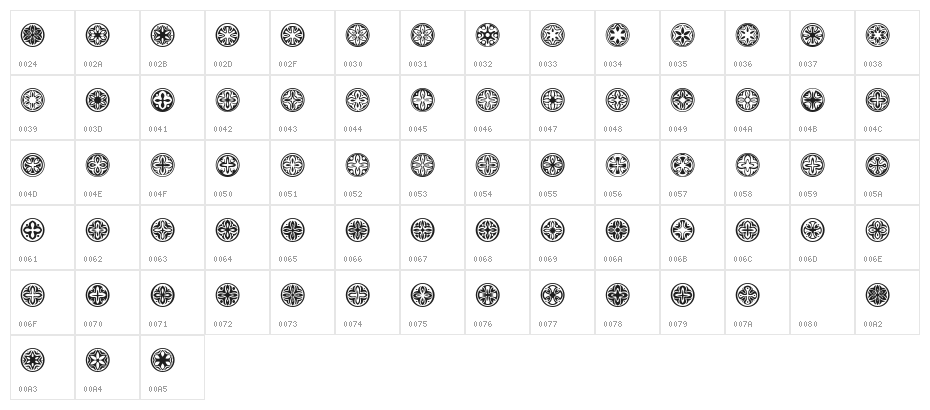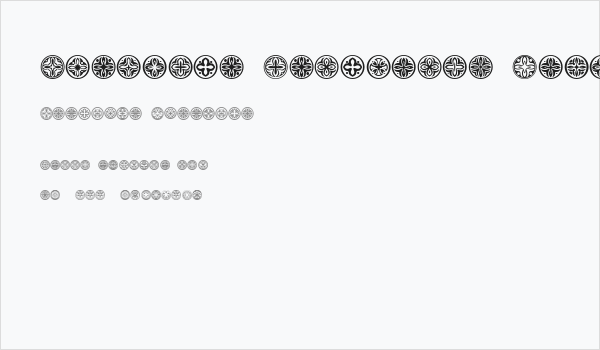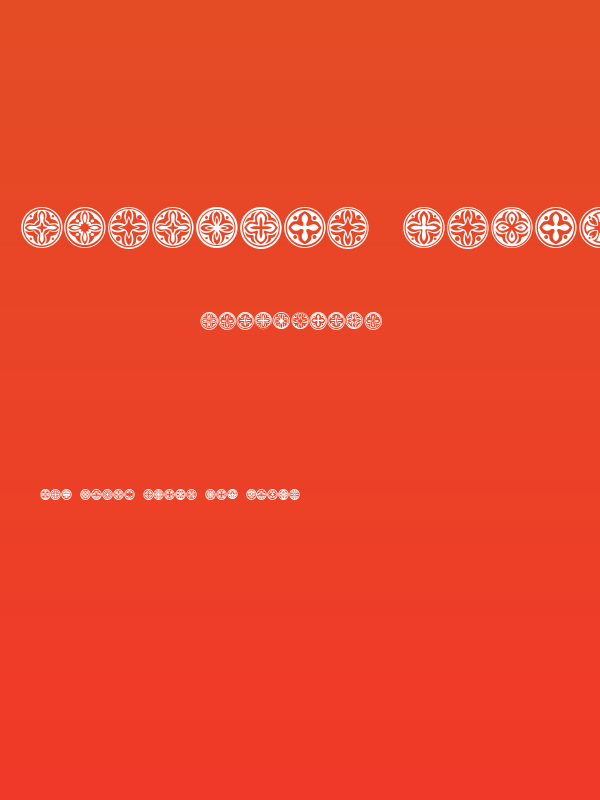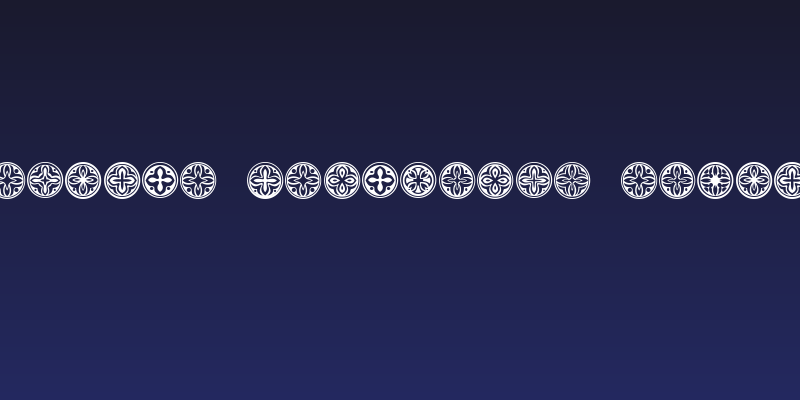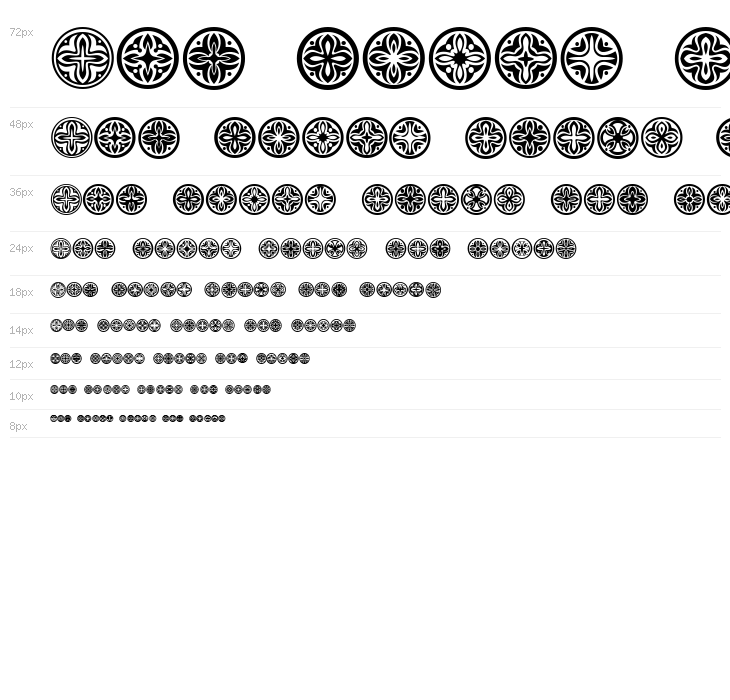
Circular Ornaments Regular Font
Circular Ornaments Regular Description
This collection features a series of circular ornaments, each with intricate and symmetrical designs. The patterns are enclosed within a bold circular border, creating a cohesive and visually striking appearance. The designs vary from floral motifs to geometric shapes, offering a diverse range of decorative elements. The consistent use of black and white contrast enhances the clarity and impact of each ornament, making them suitable for various artistic and design applications.
| Use Case | Logos, Decorative elements, Art projects |
| Proposed Projects | Ideal for use in decorative borders, logo designs, packaging, and digital artwork where a touch of elegance and intricacy is desired. |